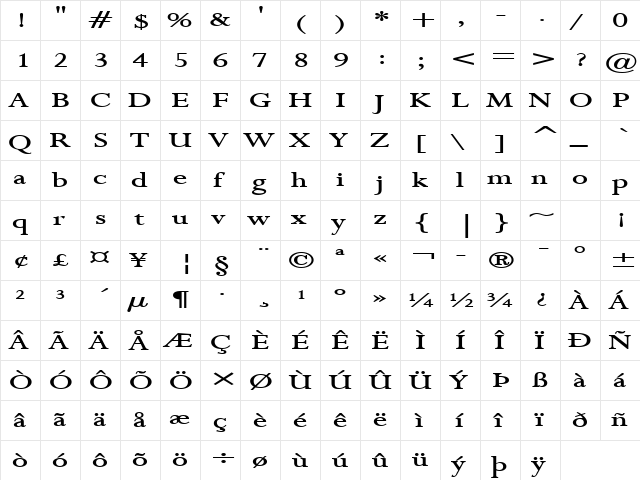
Rapid Extended Bold
Design Context for Rapid Extended Typeface
Rapid Extended takes a measured approach to typography — its balanced proportions and neutral character make it a reliable workhorse for both digital and print work. The heavy weight commands attention and anchors typographic hierarchies.